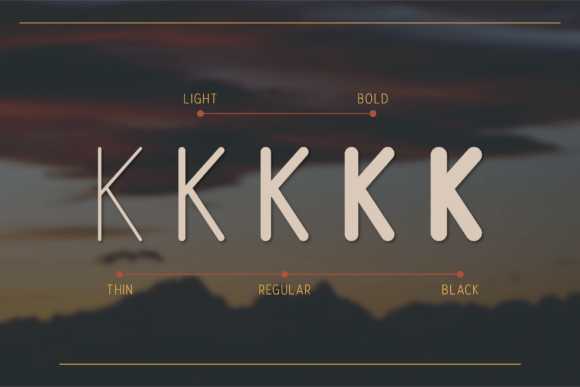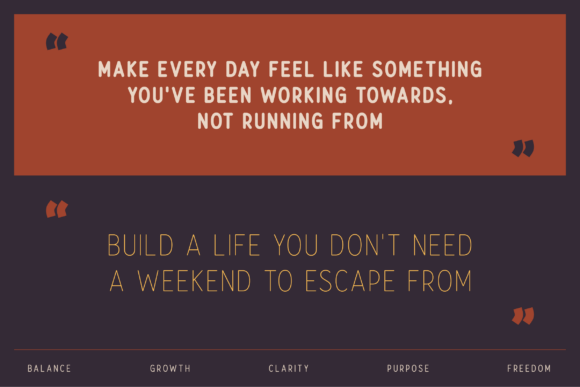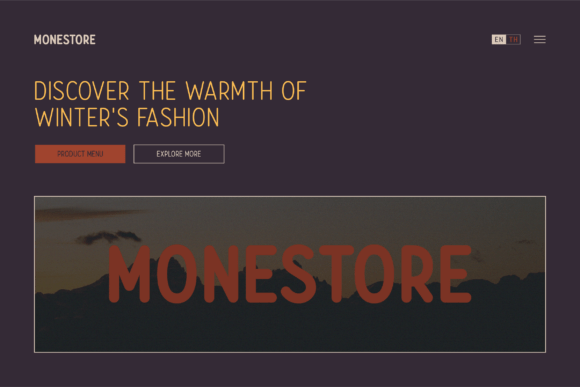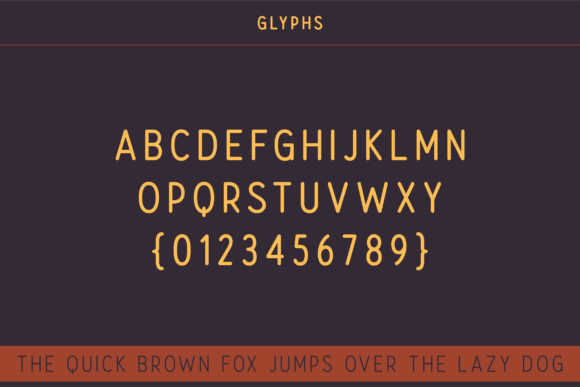
Introduction to Nomotype Rounded Font
Have you ever stared at a blank canvas, waiting for the perfect font to bring your creative vision to life? For designers, finding the right typography can be a game-changer. It’s that moment when your design suddenly clicks, and everything falls into place.
Enter Nomotype Rounded Font, a modern all-caps sans serif font family designed to bring clarity, warmth, and bold personality to your creative projects. With its soft-rounded edges and sleek, geometric construction, this font is both highly legible and aesthetically balanced. Whether you’re building a logo, packaging design, social media visuals, or high-impact headlines, Nomotype Rounded Font adapts beautifully while adding a polished, confident touch.
This valuable design resource offers five versatile weights: Thin, Light, Regular, Bold, and Black. With its high quality and versatility, Nomotype Rounded Font is a must-have for designers, crafters, and brand creators looking to achieve a clean yet friendly visual identity.
Key Features of Nomotype Rounded Font
- High-quality design resource suitable for creative projects, offering a unique rounded style.
- Features a transparent background, allowing for easy integration with any design or image.
- Includes multiple font styles and weights, providing designers with a range of options for their creative project.
- Designed with high resolution in mind, making it suitable for use in both print and digital applications.
- Can be easily scaled and resized without compromising its quality, making it an ideal choice for logos, headings, and body text.
Honest Review: Nomotype Rounded Font
As a designer, I’m always on the lookout for high-quality fonts to elevate my creative projects. Recently, I had the chance to try out the Nomotype Rounded Font, and here’s my honest review.
What works well: ✨ The font is incredibly versatile and can be used for a wide range of design projects, from digital interfaces to print materials. The rounded design gives it a friendly and approachable feel, making it perfect for branding and marketing materials.
Overall, I’m impressed with the Nomotype Rounded Font and would definitely recommend it to designers looking for a high-quality, versatile font for their creative projects. While it may have some limitations, its unique rounded design and transparent background option make it a valuable addition to any design library.
Nomotype Rounded Font
Nomotype Rounded Font is a high-quality design resource that offers a unique and modern aesthetic for creative projects. With its transparent background, this font can be easily incorporated into various design tools.
Tips for Getting the Most Out of Nomotype Rounded Font
To get the most out of Nomotype Rounded Font, use it in conjunction with other design elements that complement its modern aesthetic. Experiment with different font sizes, colors, and arrangements to create visually appealing designs.
Nomotype Rounded Font is commonly used in creative projects such as logos, branding materials, and digital designs. Its modern aesthetic makes it a great choice for a variety of industries and applications.